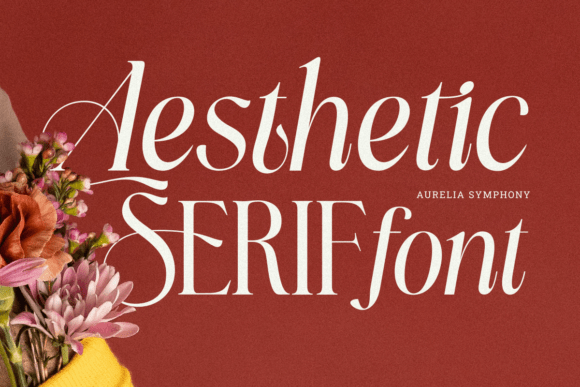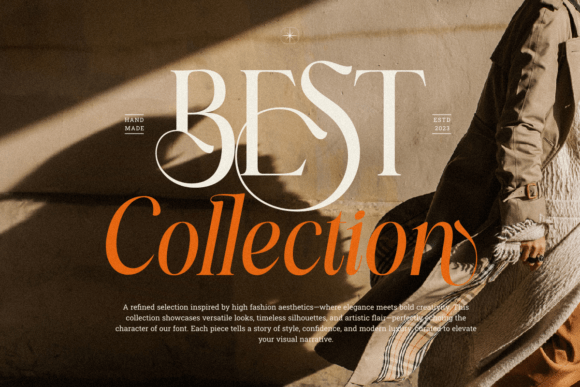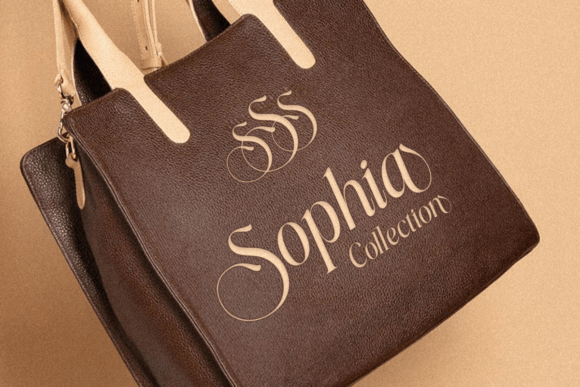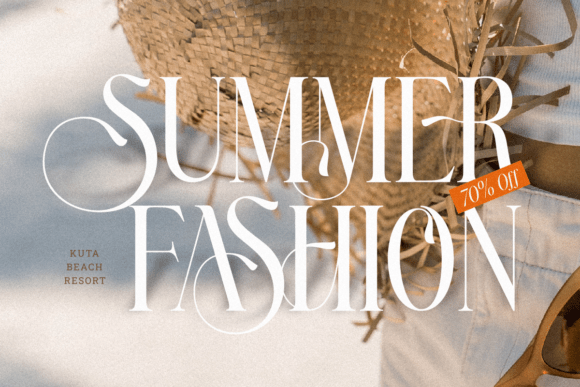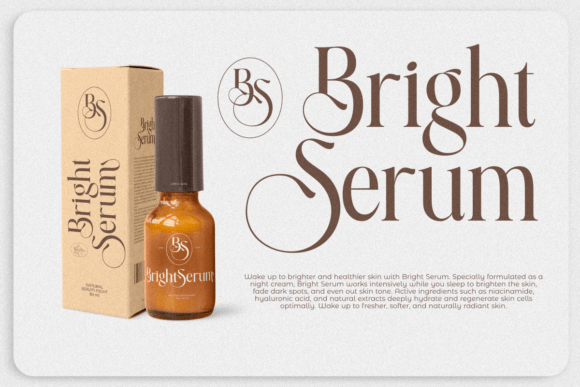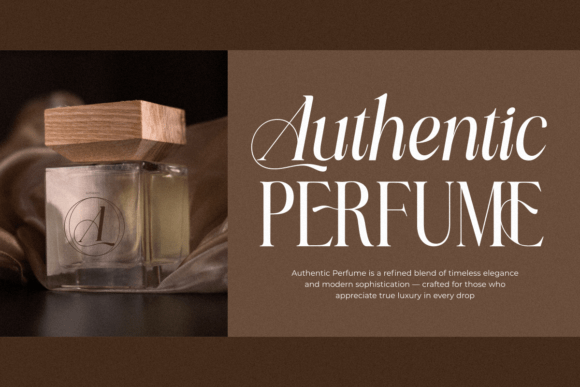
Aurelia Symphony Font: Elevate Your Designs with Timeless Elegance
In the world of typography, few fonts capture the essence of elegance and romance as beautifully as Aurelia Symphony. This high-contrast serif font is meticulously crafted to bring a touch of sophistication and charm to your designs. Whether you’re working on fashion branding, wedding invitations, book covers, packaging, or editorial layouts, Aurelia Symphony is the perfect choice for adding a dash of refinement and luxury.
The Beauty of Aurelia Symphony
Aurelia Symphony boasts smooth curves, refined ligatures, and stylish alternates that set it apart from other serif fonts. Its high-contrast design gives it a classic, sophisticated look that’s reminiscent of traditional luxury typography. The font’s Regular and Italic styles offer a versatile range of options, allowing you to seamlessly blend classic structure with expressive flair. This versatility makes Aurelia Symphony an excellent choice for a wide range of design applications.
Perfect for Fashion Branding
Fashion brands require typography that exudes elegance, sophistication, and style. Aurelia Symphony delivers on all fronts, providing a refined and luxurious aesthetic that’s perfect for branding, logos, and marketing materials. The font’s high-contrast design and elegant lines evoke a sense of high-end fashion, making it an ideal choice for designers looking to create a premium brand image.
Wedding Invitations and Event Design
Wedding invitations, event flyers, and other celebratory materials require a font that’s both elegant and romantic. Aurelia Symphony fits the bill perfectly, with its flowing curves and refined lines creating a sense of whimsy and sophistication. Whether you’re designing a formal wedding invitation or a more casual event flyer, Aurelia Symphony adds a touch of luxury and refinement that’s sure to impress.
Book Covers and Editorial Layouts
For authors, publishers, and designers, Aurelia Symphony offers a unique opportunity to create eye-catching book covers and editorial layouts. The font’s classic, high-contrast design makes it perfect for traditional and contemporary book covers, while its elegant lines and refined ligatures add a touch of sophistication to editorial layouts. Whether you’re working on a fiction novel, non-fiction book, or magazine layout, Aurelia Symphony is an excellent choice for adding a dash of elegance and refinement.
Packaging and Product Design
Aurelia Symphony is not just limited to digital and print designs; it’s also an excellent choice for packaging and product design. The font’s luxurious aesthetic and high-contrast design make it perfect for product labels, packaging materials, and branding elements. Whether you’re designing a premium product or a bespoke item, Aurelia Symphony adds a touch of sophistication and elegance that’s sure to elevate your design.
Why Choose Aurelia Symphony?
So why choose Aurelia Symphony over other serif fonts? Here are just a few reasons why designers and crafters love this beautiful font:
- Timeless elegance: Aurelia Symphony’s classic design ensures that your designs will stand the test of time, remaining elegant and sophisticated for years to come.
- Romantic touch: The font’s flowing curves and refined lines add a touch of romance and whimsy to your designs, making it perfect for wedding invitations, event design, and other celebratory materials.
- Versatility: With Regular and Italic styles, Aurelia Symphony offers a versatile range of options for designers, allowing you to seamlessly blend classic structure with expressive flair.
- High-contrast design: The font’s high-contrast design gives it a luxurious aesthetic that’s perfect for fashion branding, book covers, and other high-end design applications.
| Author | saemooncreative |
In conclusion, Aurelia Symphony is a beautifully crafted high-contrast serif font that’s perfect for designers and crafters looking to add a touch of elegance and sophistication to their designs. With its smooth curves, refined ligatures, and stylish alternates, this typeface is an excellent choice for fashion branding, wedding invitations, book covers, packaging, and editorial layouts. Whether you’re designing for print or digital, Aurelia Symphony is sure to elevate your design and leave a lasting impression.
Add a touch of elegance to your next creation with Aurelia Symphony – a serif font designed with heart.